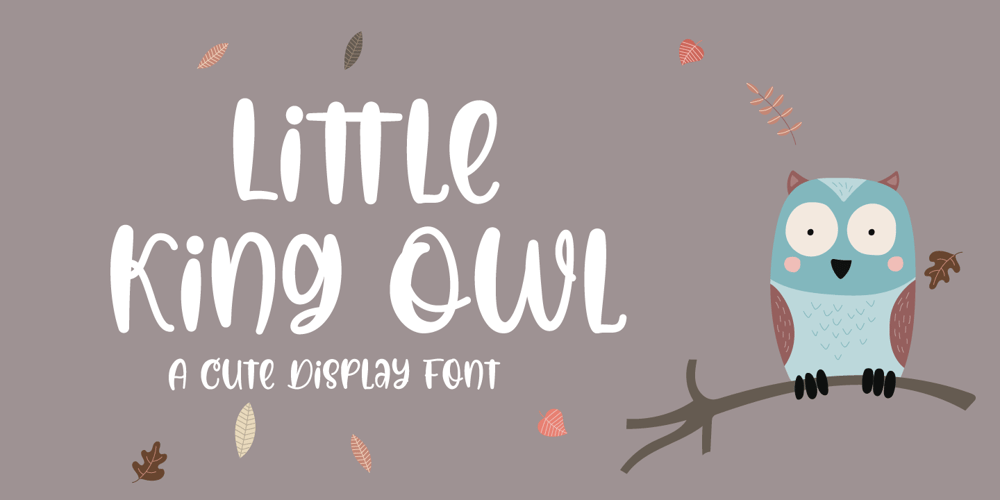
Little King Owl Font Family was designed by sugiharto – and published by Letter Art Studio. Little King Owl contains 1 styles and family package options. Little King Owl is a simple and interesting handwritten font. Its friendly feel makes this font incredibly versatile, fitting a wide range of contexts. It looks stunning on thank you cards, quotes, greeting cards, logos, business cards and every other design which needs of a art. Add it to your creative ideas and notice how it makes them stand out!